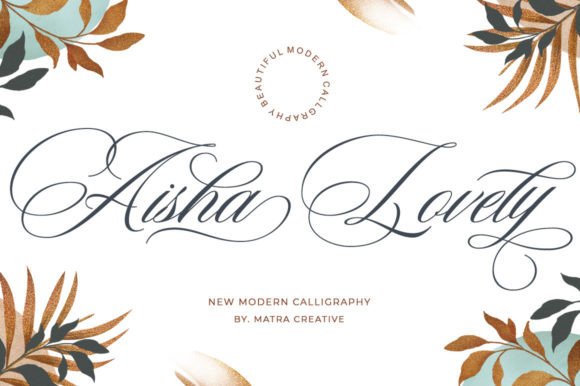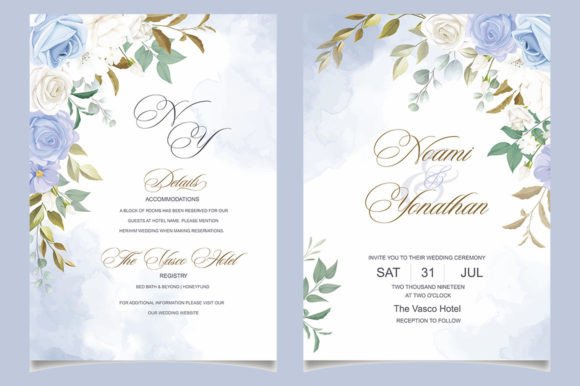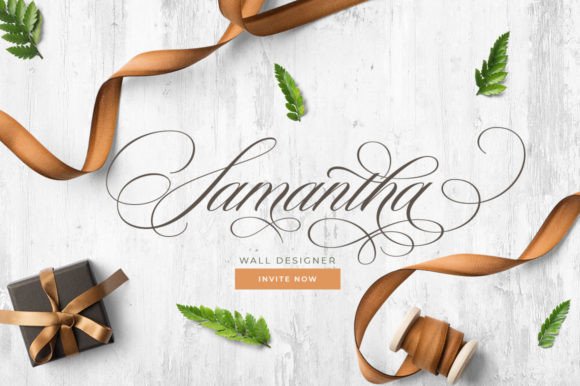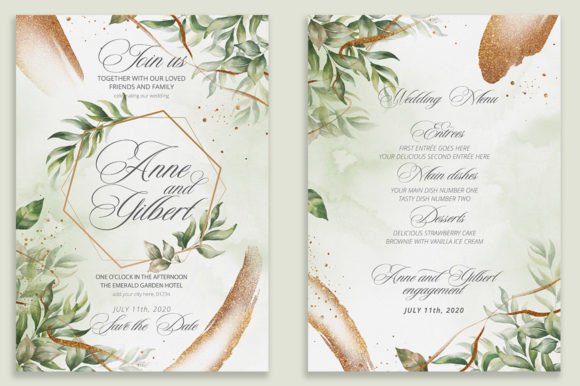
About the Aisha Lovely Font
Get ready to be inspired by Aisha Lovely Font, a fresh and dynamic typeface for modern creators. Aisha Lovely is inspired by classic typography and brings its own unique style to every design project. This fantastic script font is best suited for headers of all sizes, and for blocks of text that have maximum and minimum variations. Be it for the web, printing, moving images, or anything that needs an elegant touch – Aisha Lovely will look spectacular. This font is PUA encoded which means you can access all the glyphs and swash easily!
Aisha Lovely’s elegant, slightly playful personality makes it ideal for branding projects requiring a touch of sophistication, particularly logos, short taglines, and invitations. It excels in headlines and short text blocks across various media, from print collateral and packaging to website headers. However, its decorative nature makes it less suitable for body copy or UI elements where readability is paramount.
For optimal visual harmony, pair Aisha Lovely with a clean sans-serif like Montserrat for a modern contrast, or a classic serif like Garamond for a more timeless feel. A geometric sans-serif such as Lato could also provide a balanced, contemporary pairing. Avoid pairing it with other highly decorative scripts, as this could lead to visual clutter.
The font’s inherent swashes and flourishes lend themselves well to projects aimed at a female demographic or those promoting luxury goods, fashion, or beauty products. Its charm also works well for wedding-related materials or projects with a vintage aesthetic.